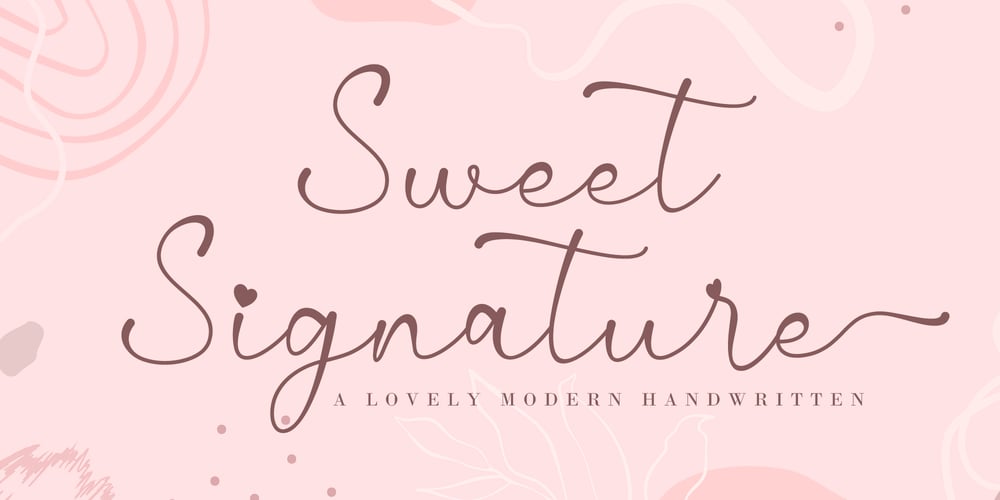
Sweet Signature
Sweet Signature font
Sweet Signature Font Family was designed by Agung Eko Nugroho and published by AEN Creative Studio. Sweet Signature contains 2 styles and family package options. Sweet Signature is a romantic and sweet handwritten typeface with characters that dance along the baseline. It will add a luxury spark to any design project you wish to create!This font is PUA encoded which means you can access all of the amazing glyphs and ligatures with ease!